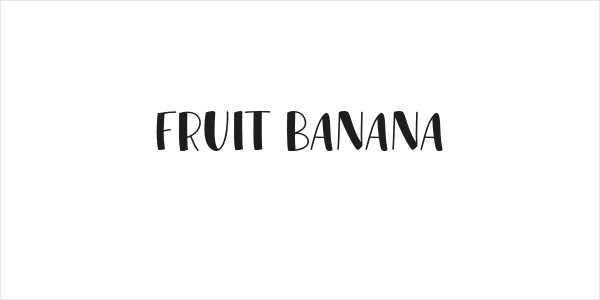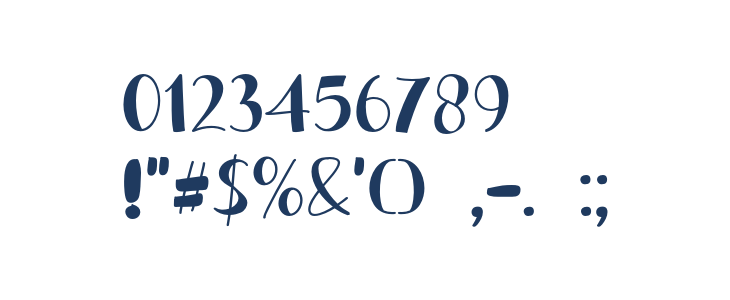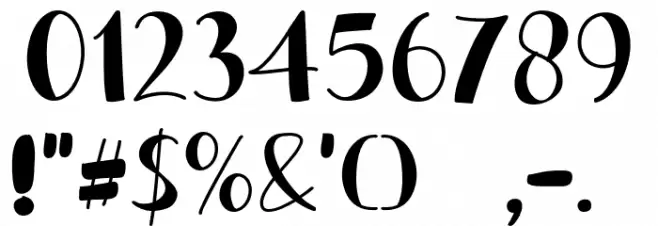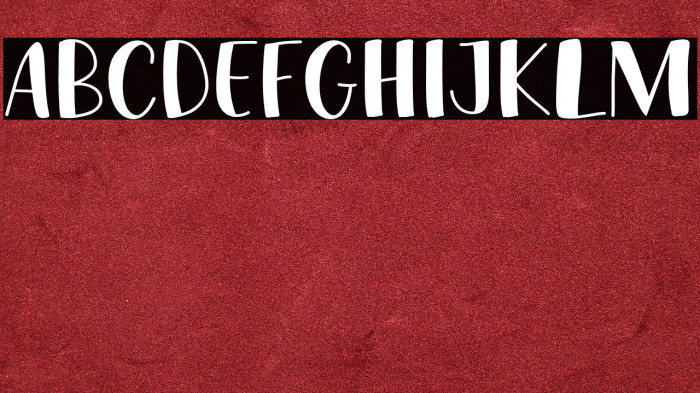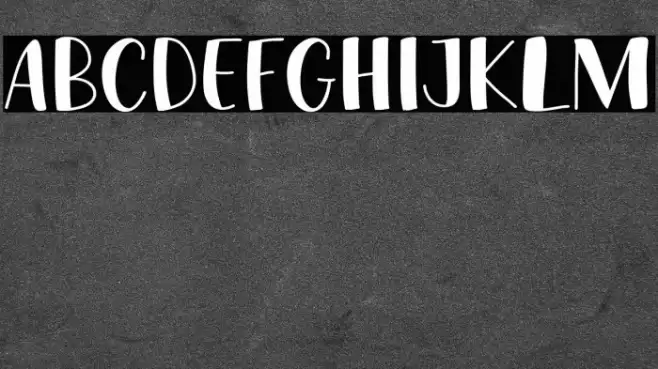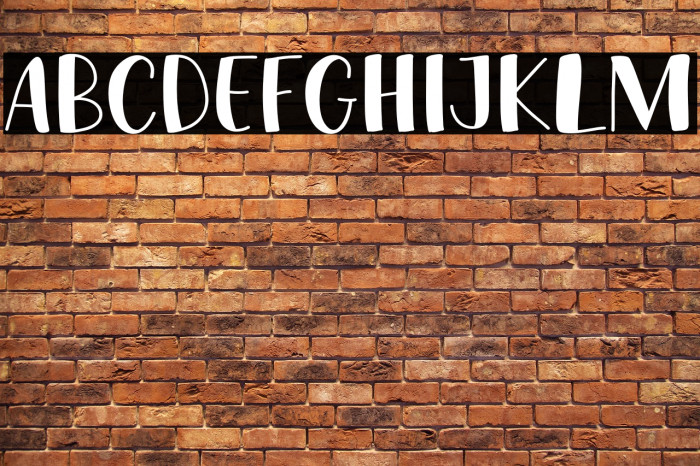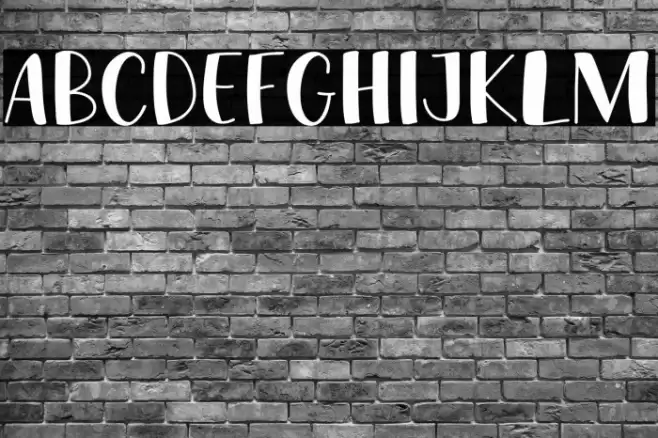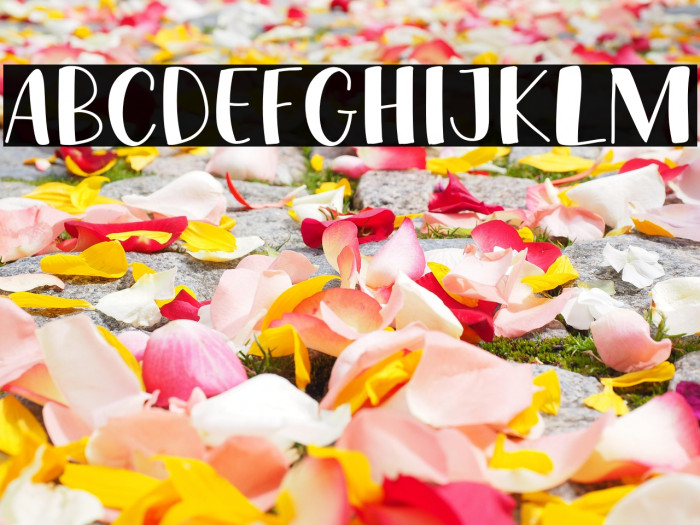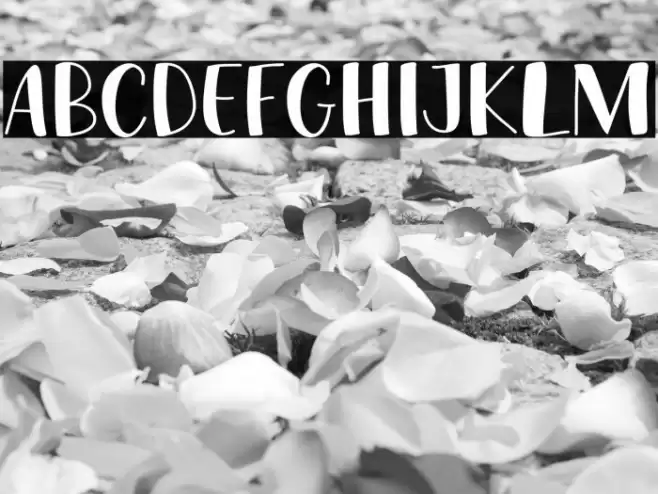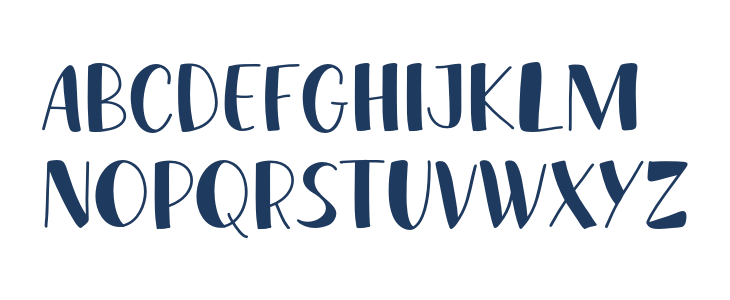
FRUIT BANANA Font
FRUIT BANANA Description
This font exhibits a playful and dynamic style, characterized by its bold and slightly irregular strokes. The letters have a hand-drawn quality, with varying thickness that adds a sense of movement and energy. The uppercase and lowercase letters maintain a consistent style, with rounded edges and a slight slant that gives a casual and approachable feel. The numerals and special characters follow the same design principles, ensuring a cohesive look across all glyphs. This font is well-suited for creative projects that require a touch of whimsy and personality.
| Proposed Projects | Ideal for children's books, playful branding, greeting cards, and creative posters. |